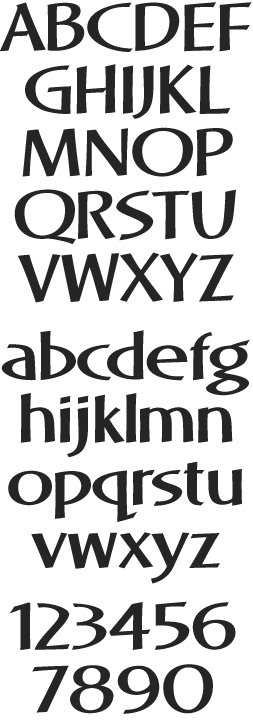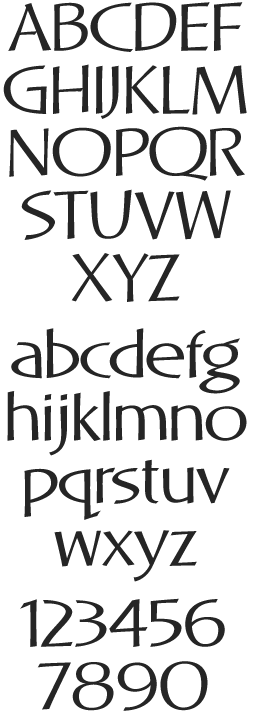
Two font set by Dave Correll. Legible at nearly any size. Has a personable, organic feel without being cartoonish.
LHF Stonecutter Reg
LHF Stonecutter Bold